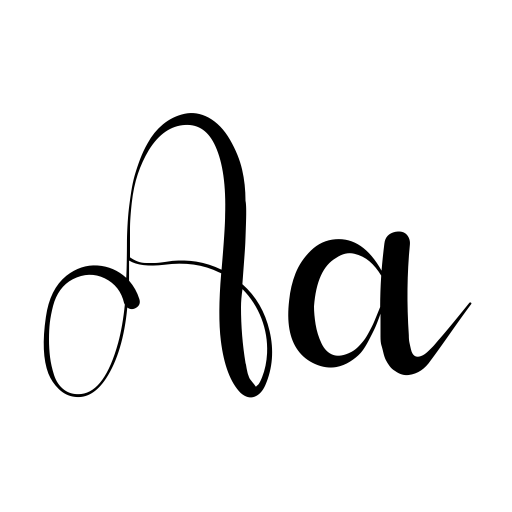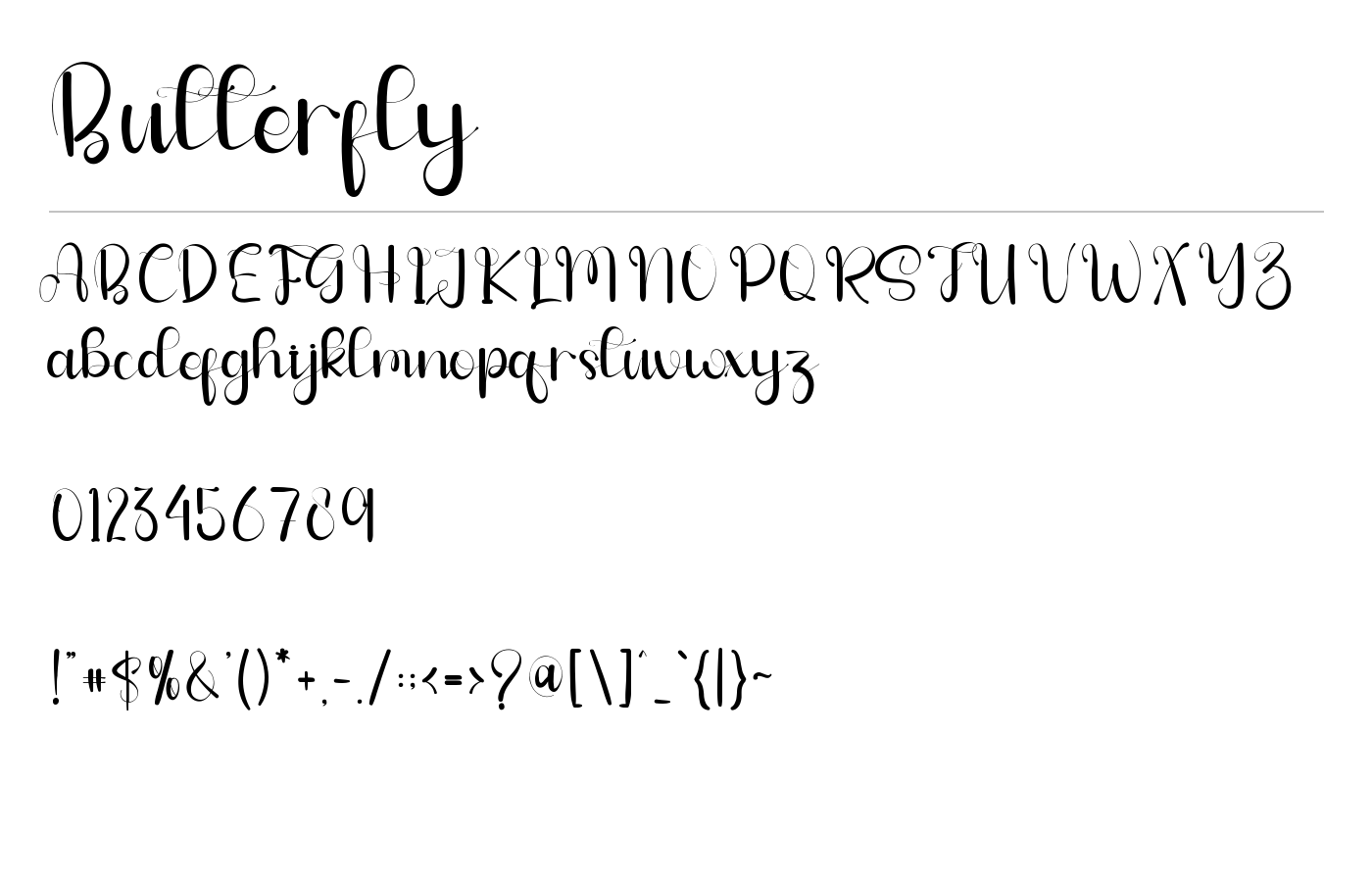
Butterfly Font is a charming script typeface with a stylish, flowing design featuring graceful swashes and delicate curves that add a whimsical, elegant feel. Its medium weight and balanced strokes make it ideal for feminine branding, invitations, or creative projects that seek a modern yet playful touch. This font works wonderfully for headlines, logos, and decorative text where a distinctive and artistic flair is desired.
Butterfly Font